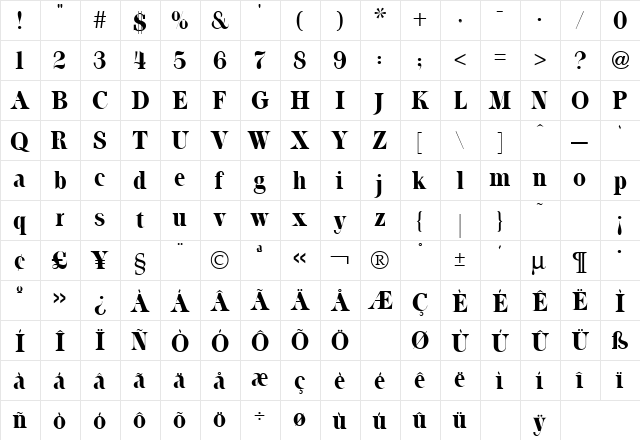
Toms Roman Regular
Design Context for Toms Roman Typeface
Toms Roman is a composed and adaptable typeface that performs quietly and consistently across a wide range of design contexts.